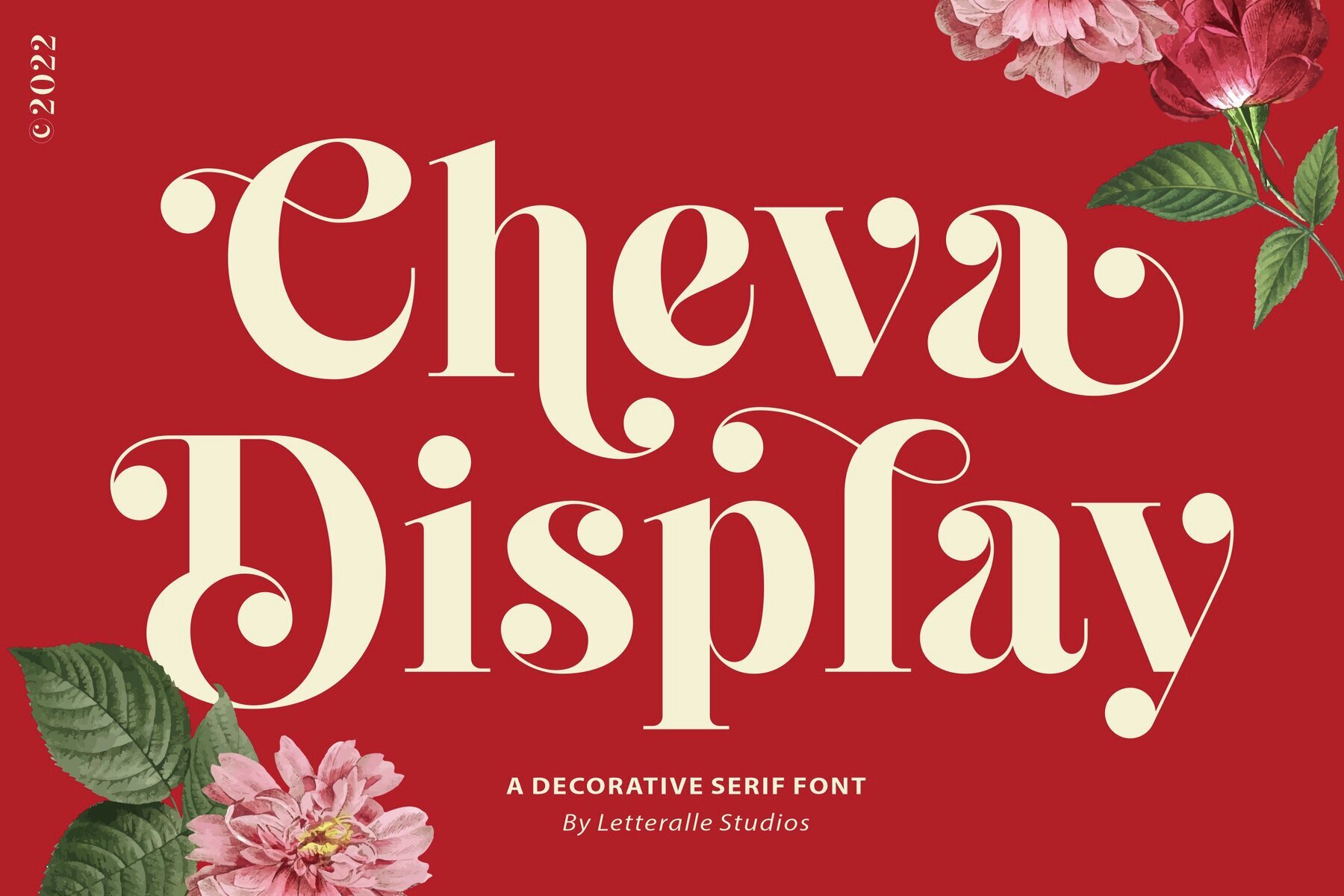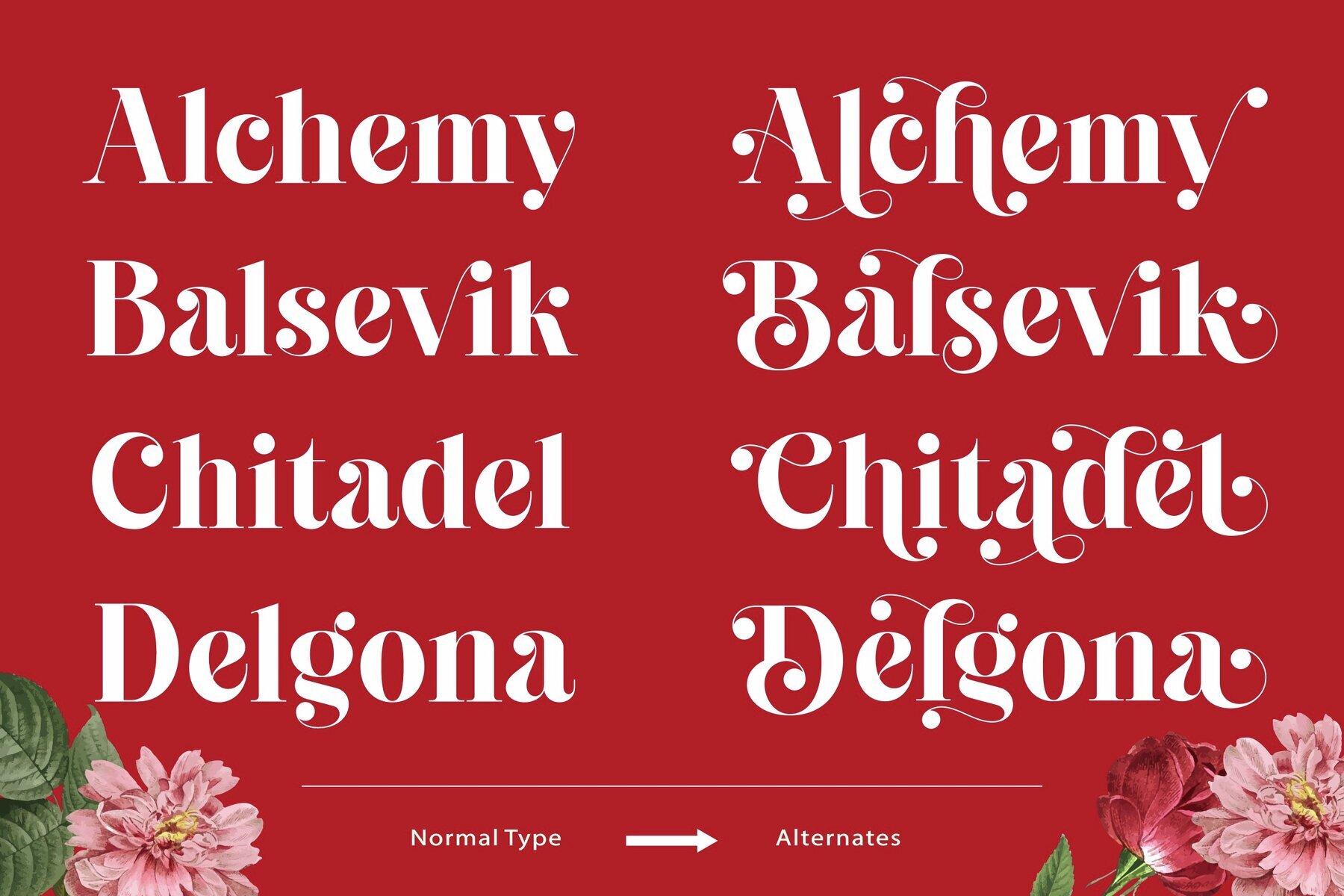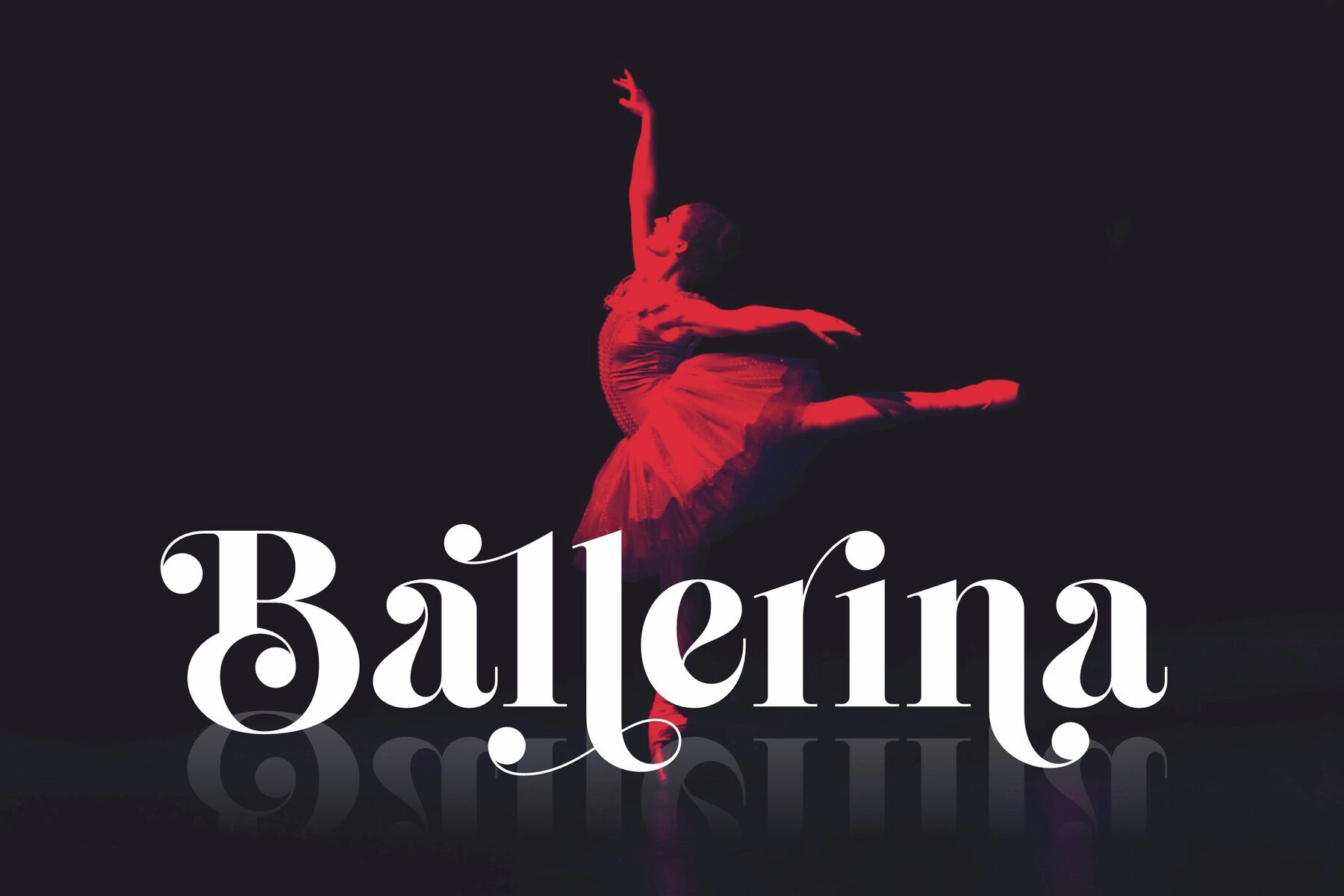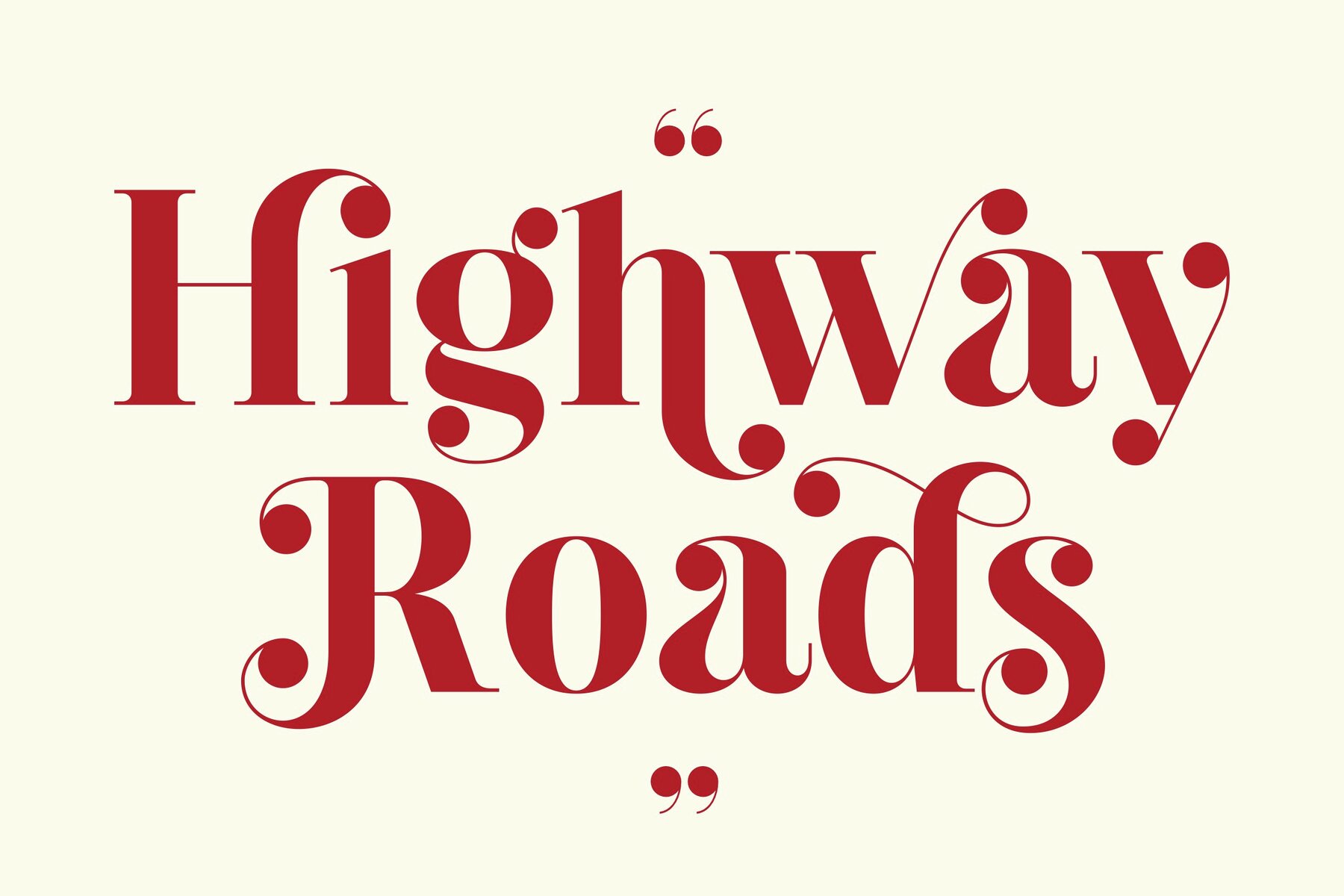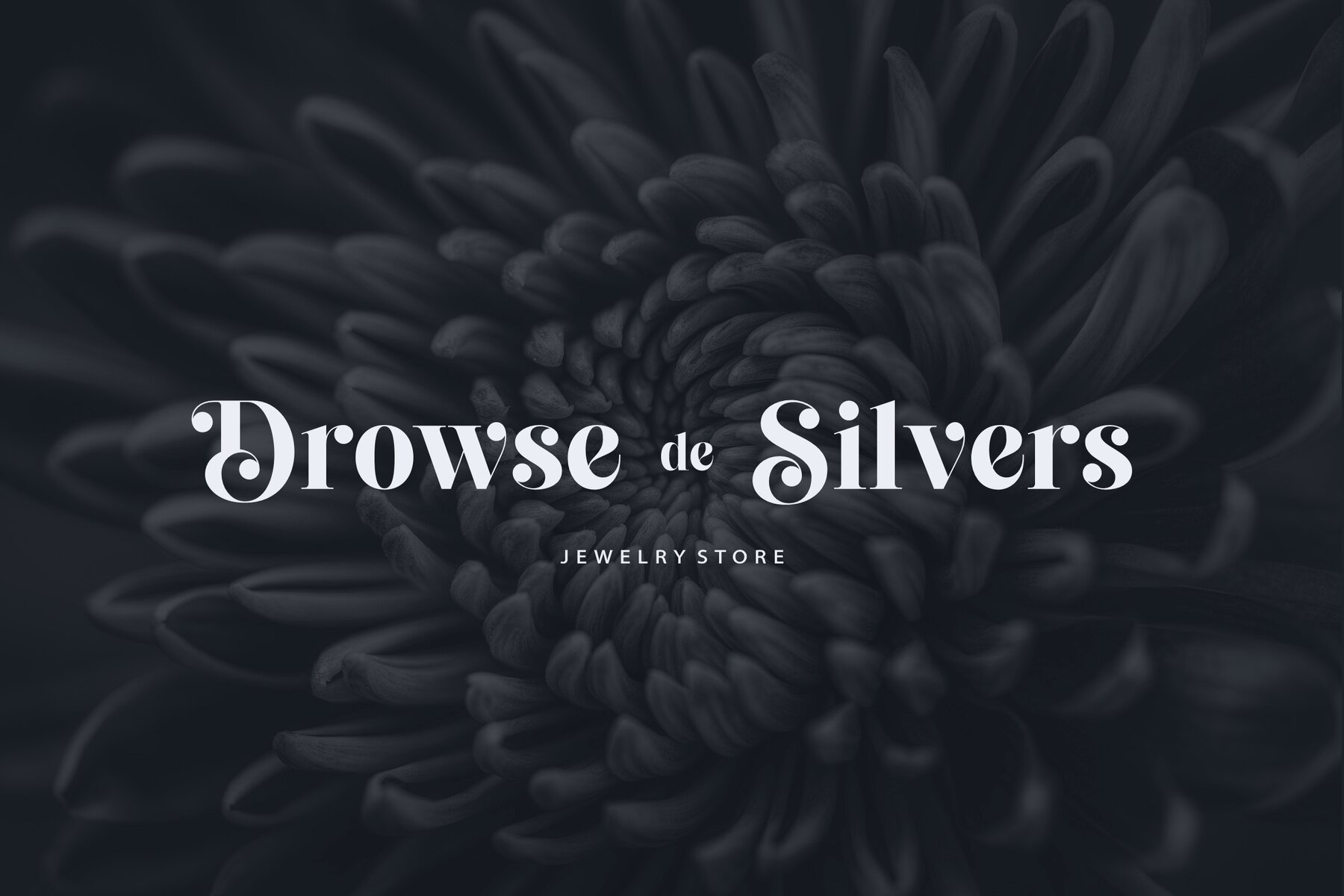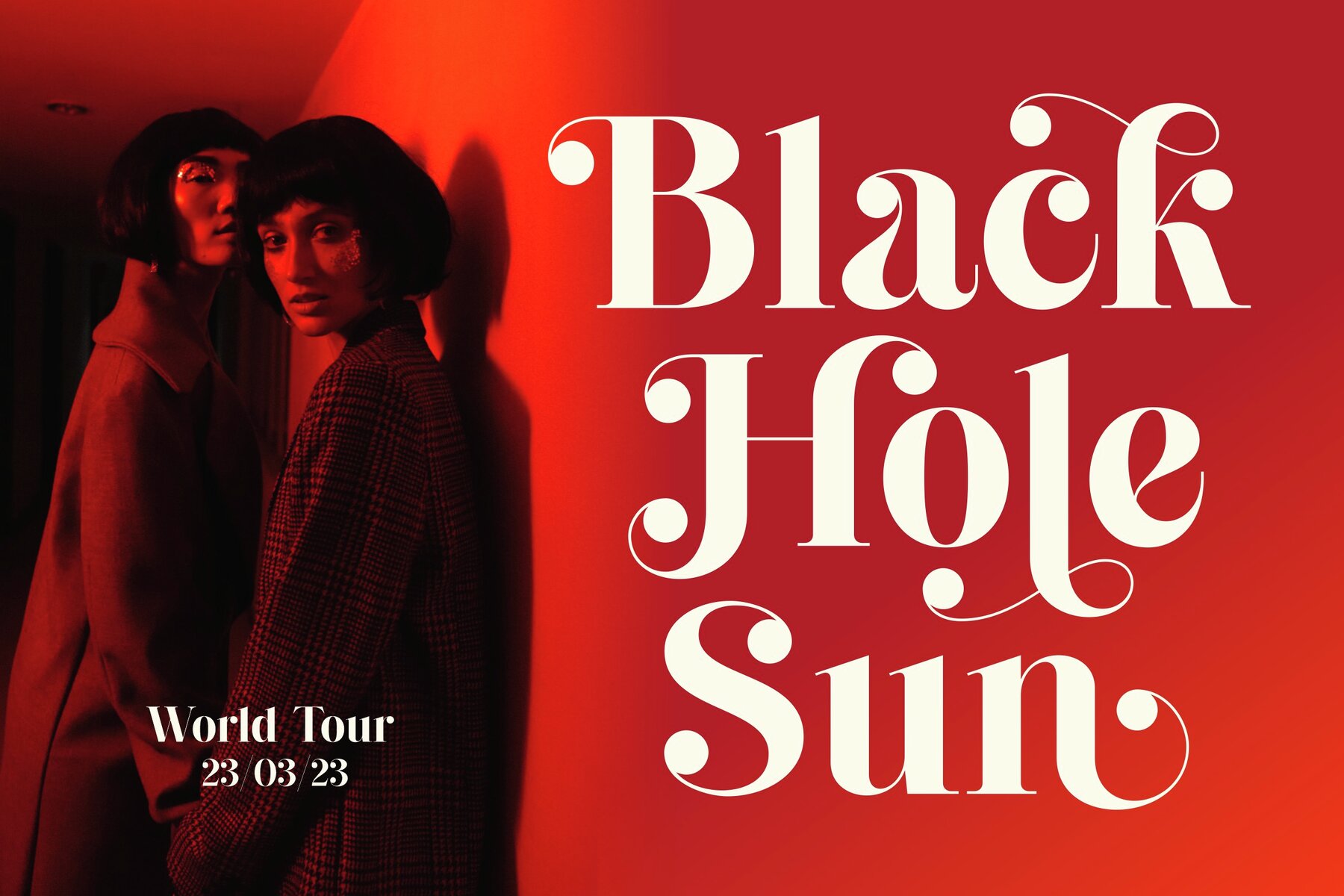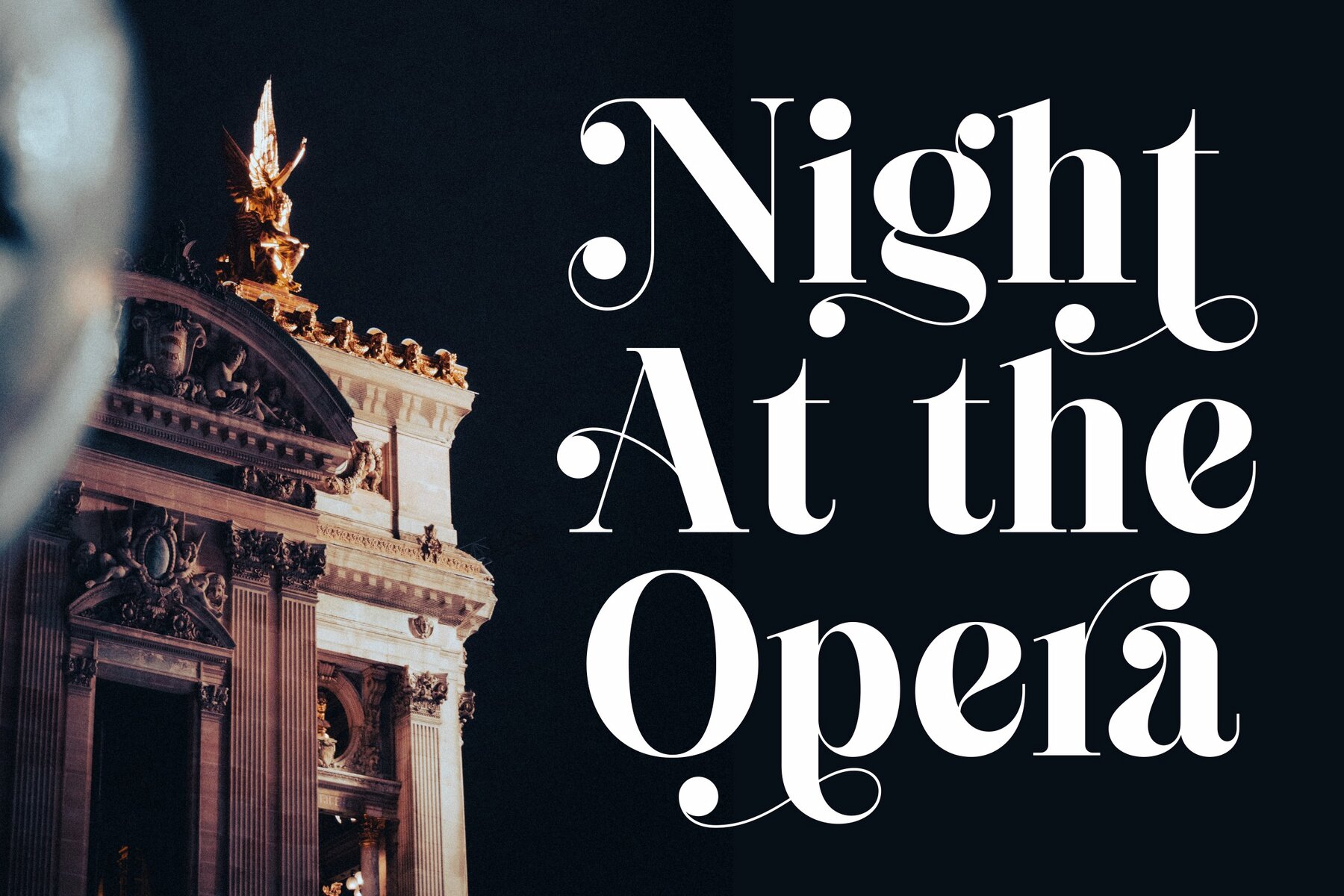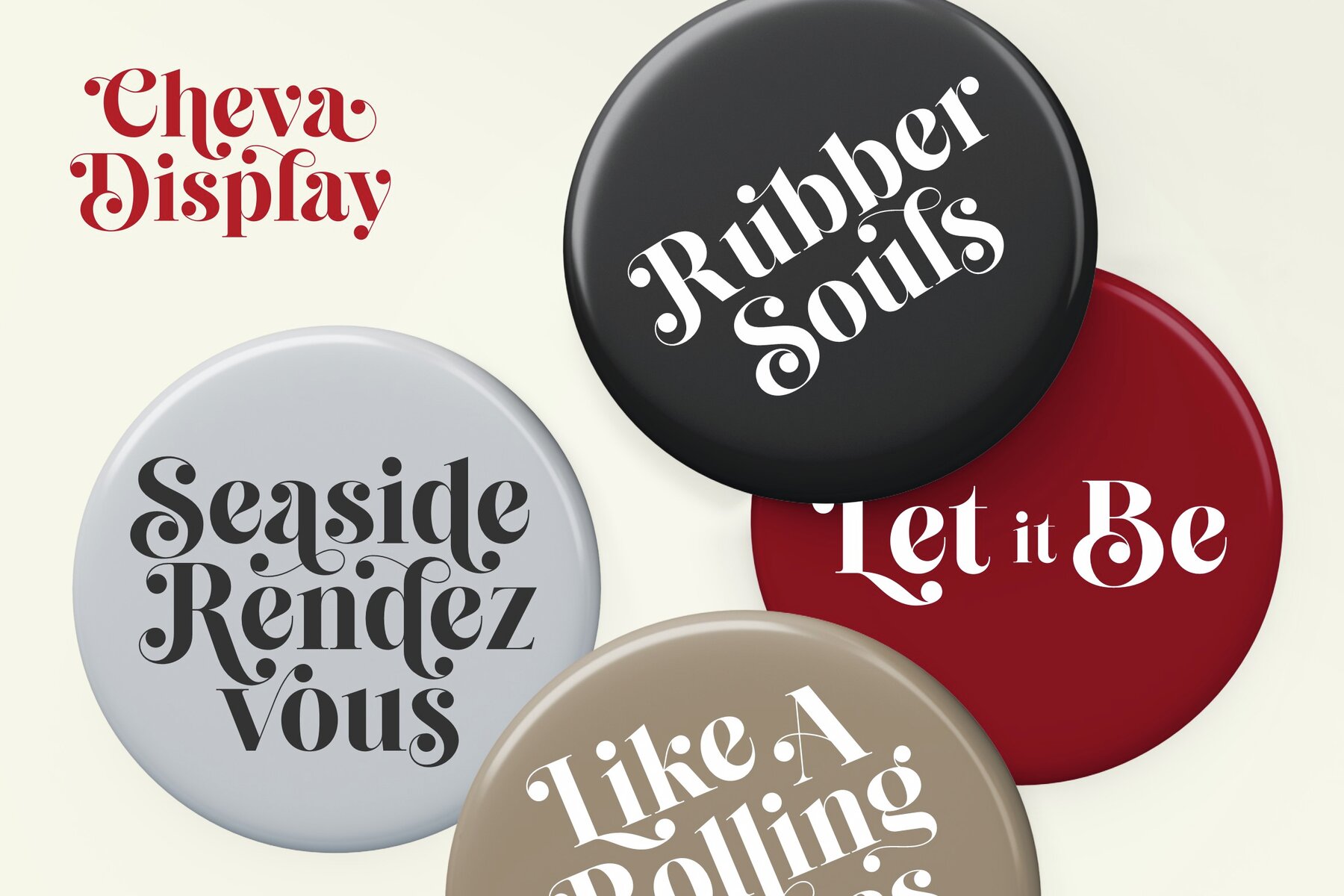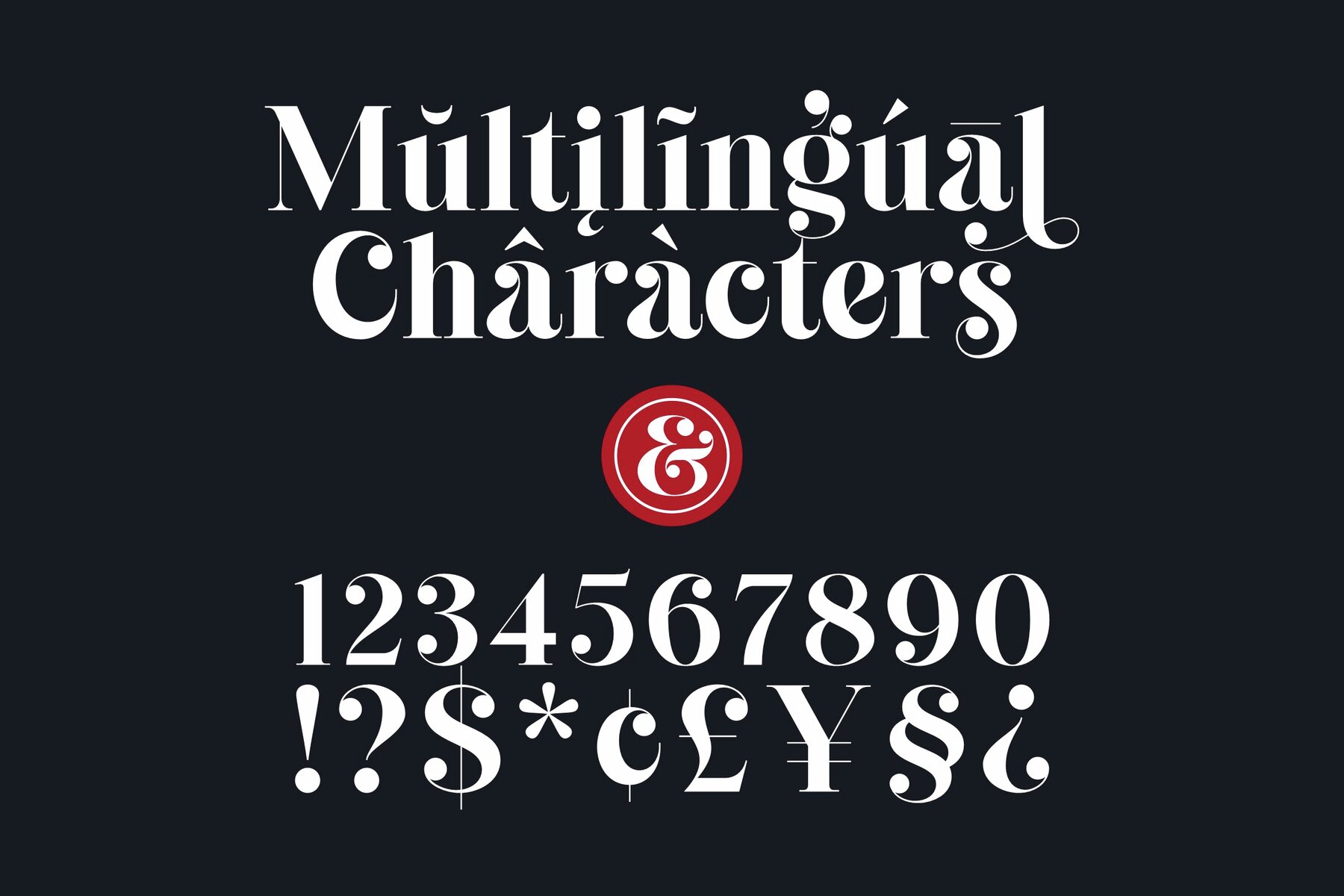
Cheva Display Font
Cheva Display Regular
Cheva Display is a bold font featuring elegant curves, blending vintage aesthetics with a modern design sensibility. Its versatility is highlighted by a variety of alternative letters and ligatures, ensuring your text stands out with uniqueness and intrigue. Cheva Display is well-suited for editorial projects, logo designs, wedding invitations, clothing branding, product packaging, and magazine headers. Additionally, it serves as a stylish text overlay for any background image.
This font includes a comprehensive set of uppercase and lowercase characters, alternates, ligatures, numerals, punctuation, and multilingual accents. Whether you're working on professional branding or creative personal projects, Cheva Display offers the flexibility and uniqueness your design needs.